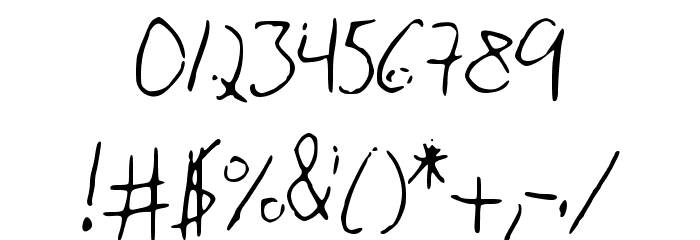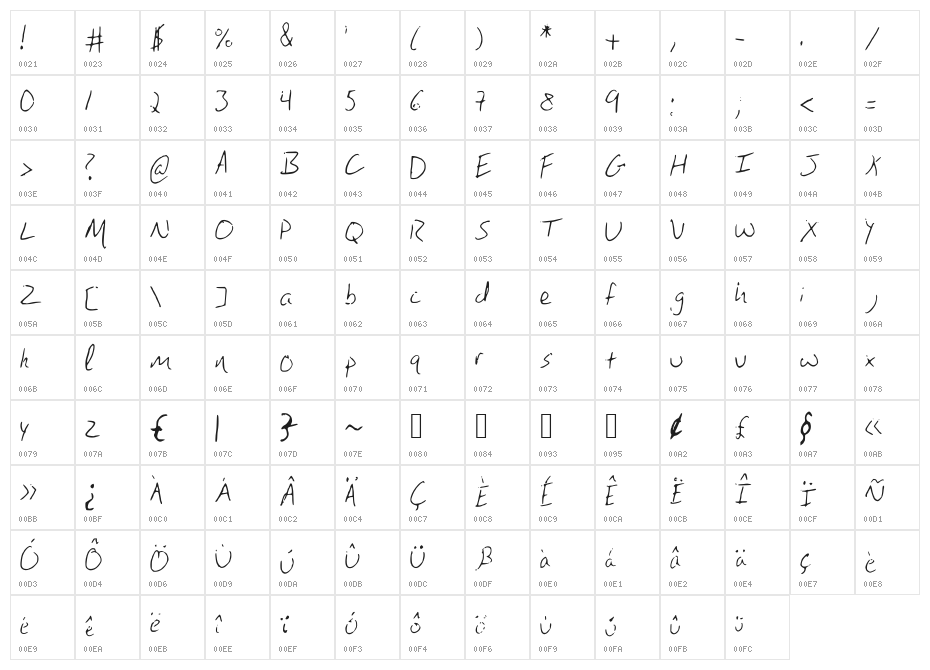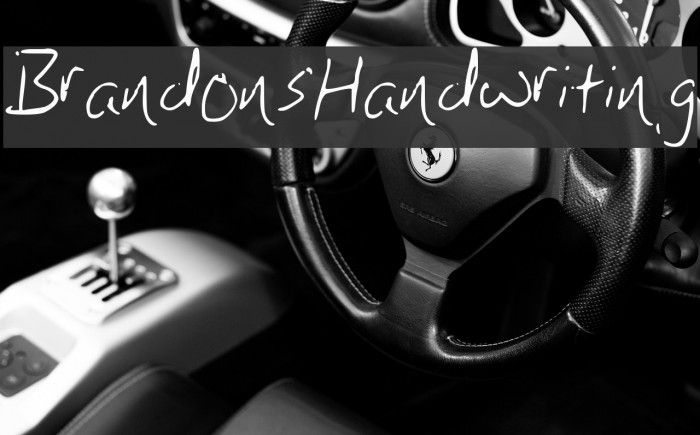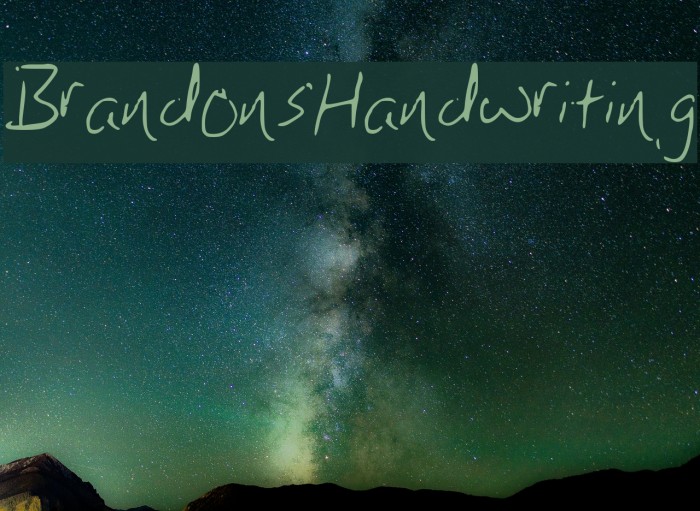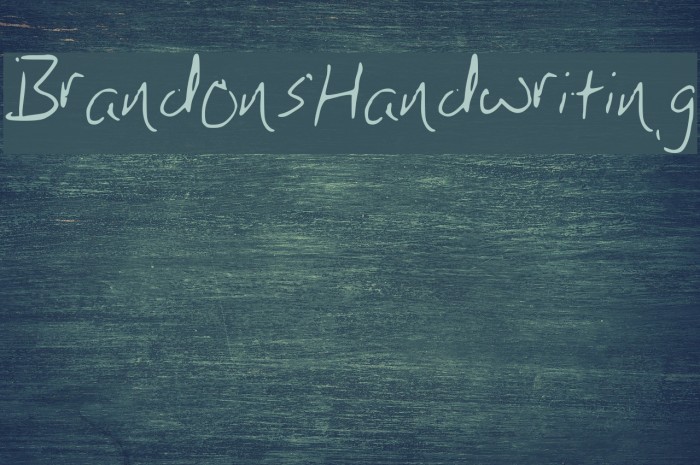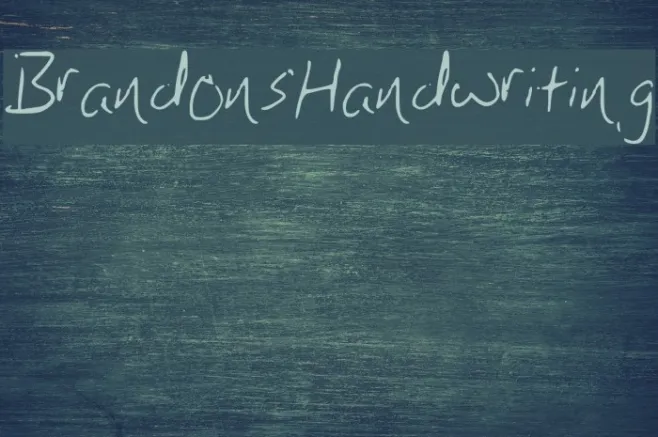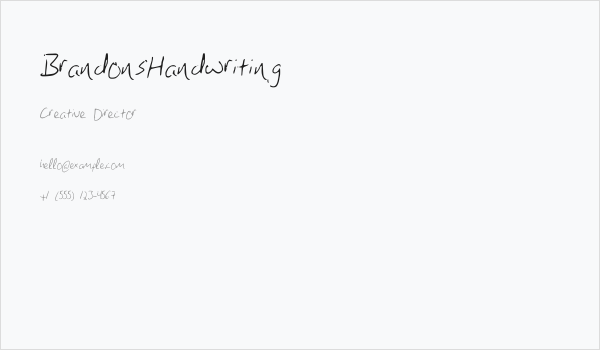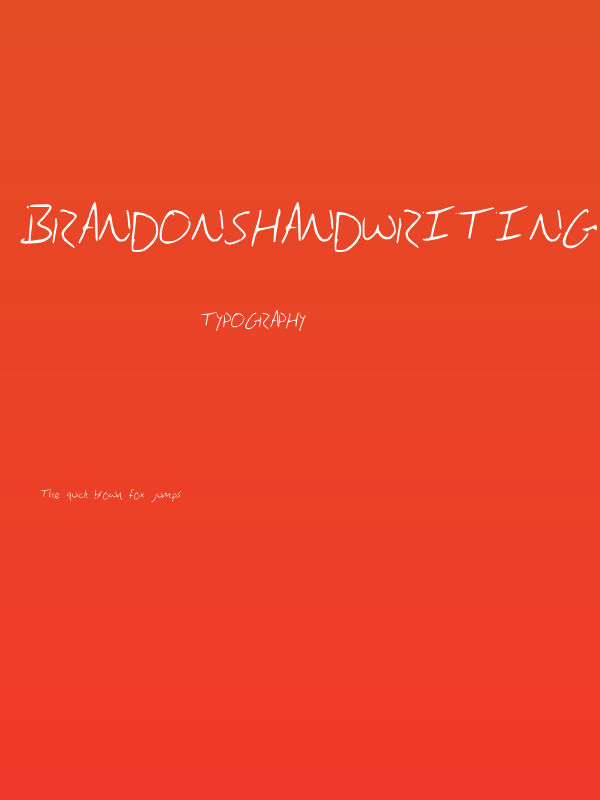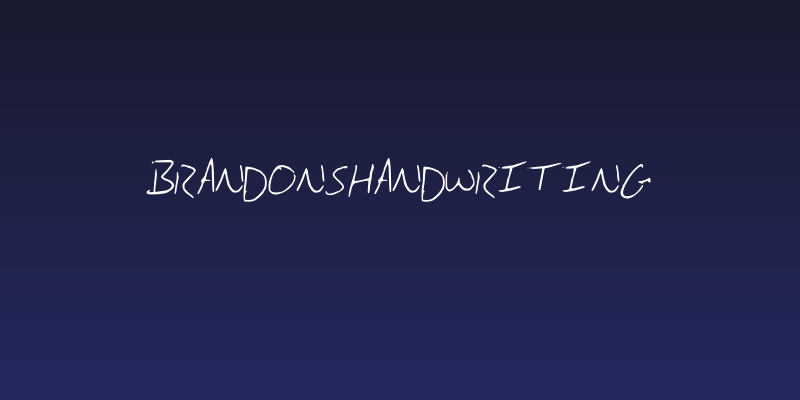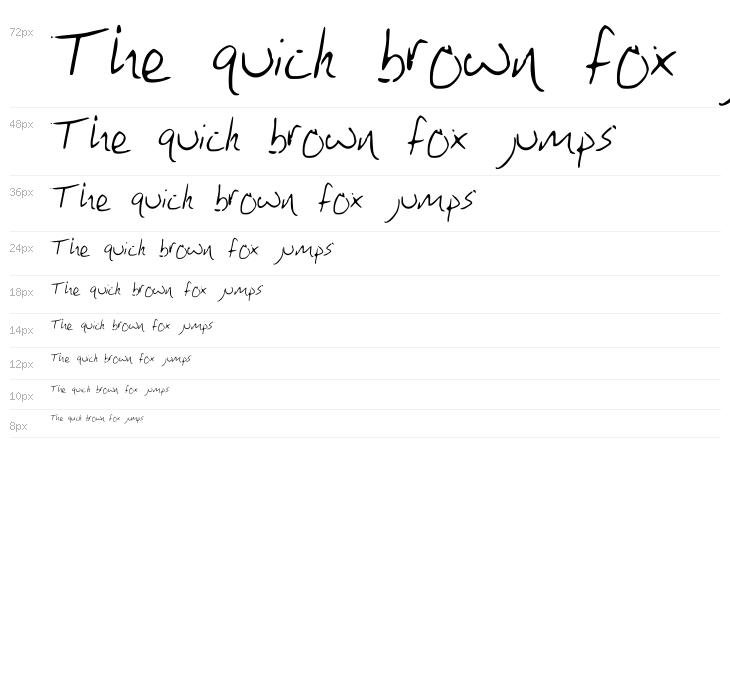
BrandonsHandwriting Font
BrandonsHandwriting Description
This font exudes a casual, handwritten style that mimics the natural flow of personal penmanship. The characters are slightly irregular, adding a touch of authenticity and charm. The uppercase and lowercase letters maintain a consistent style, with a playful yet legible appearance. The numbers and special characters are crafted with the same informal flair, making them suitable for creative projects. The overall look is approachable and friendly, ideal for conveying a personal touch in digital and print media.
| Proposed Projects | Ideal for personal notes, invitations, greeting cards, and creative branding projects. |